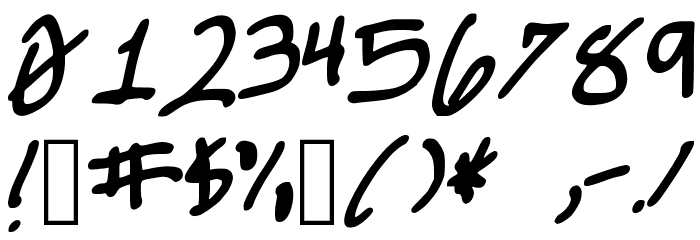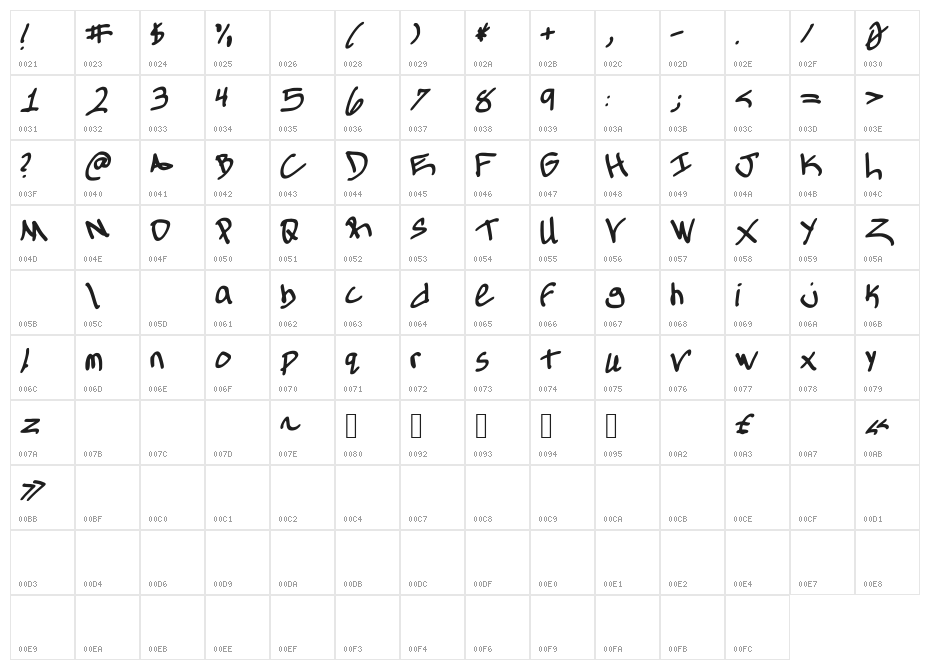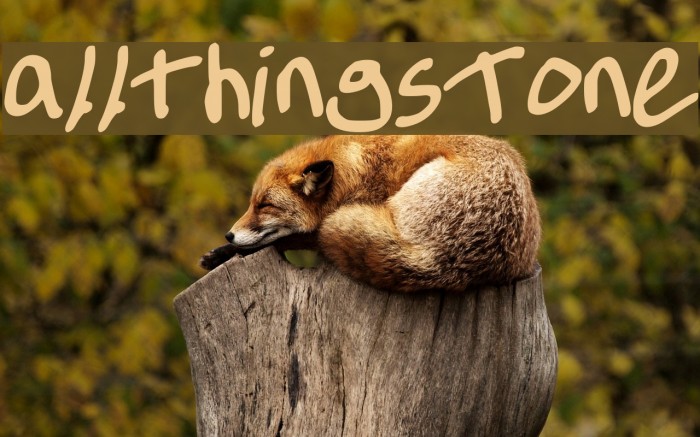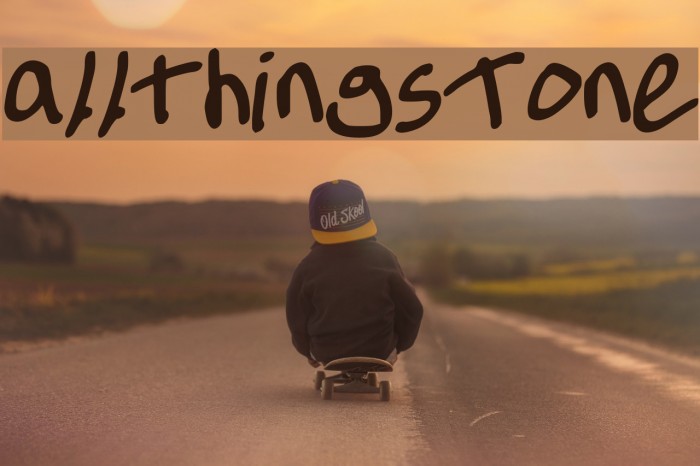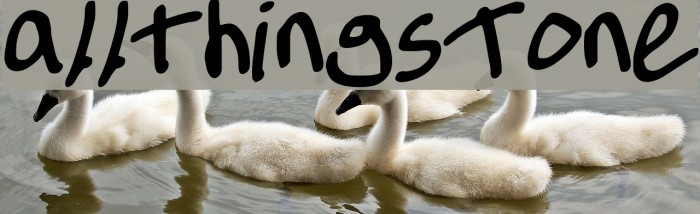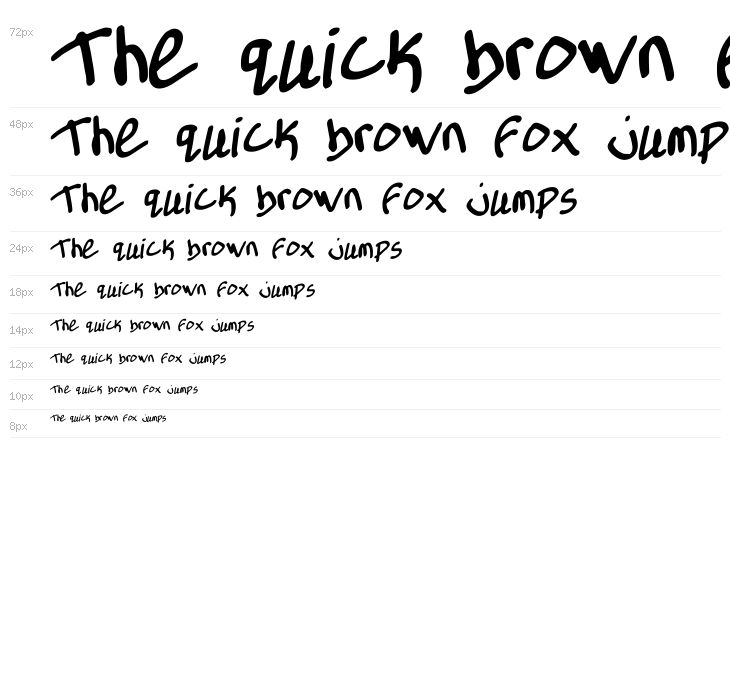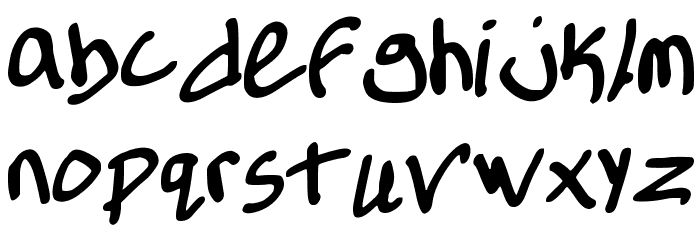
allthingsTone Font
allthingsTone Description
This font features a playful and energetic handwritten style, characterized by its bold and slightly irregular strokes. The letters are dynamic and have a casual, informal appearance, making them ideal for projects that require a personal touch. The uppercase and lowercase letters maintain a consistent style, with rounded edges and a slight slant that adds to the overall fluidity. Numbers and special characters are designed to match the playful aesthetic, ensuring a cohesive look across all text elements.
Fonts by Anthony Shane
| Proposed Projects | Ideal for greeting cards, children's books, casual branding, and social media graphics. |